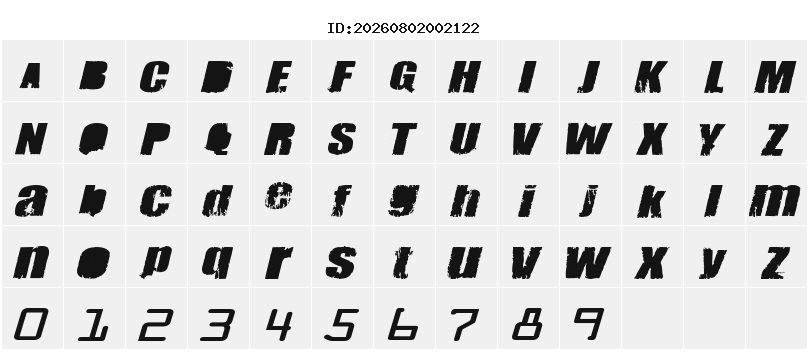
Meanies Preview
• Font Name: Meanies
• Font Style: Thick
• Full Font Name: Meanies Thick
About Meanies.ttf
Meanies.ttf is a modern, elegant sans-serif font designed for ultimate readability and visual harmony. Perfect for branding, headlines, web design, and print materials.